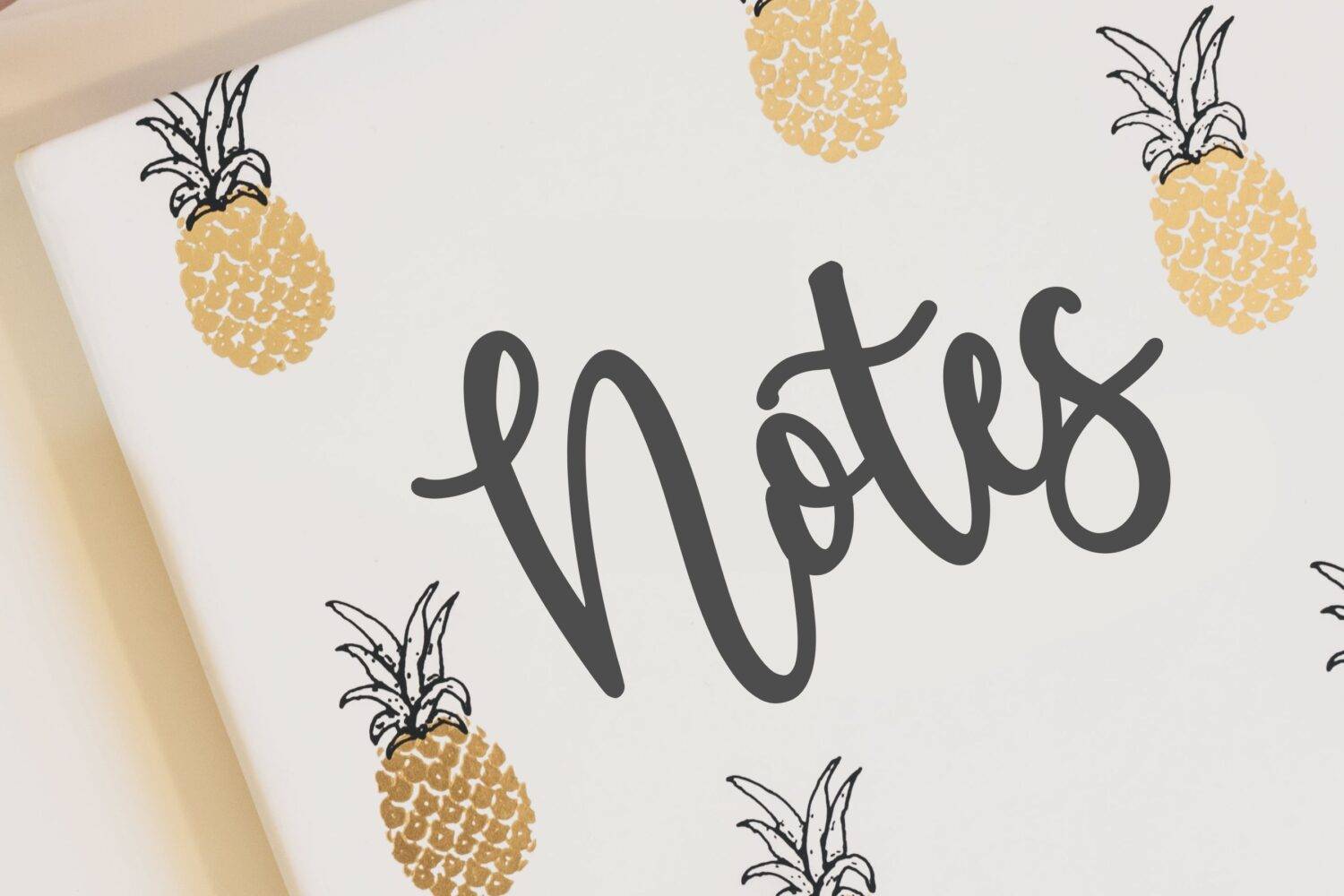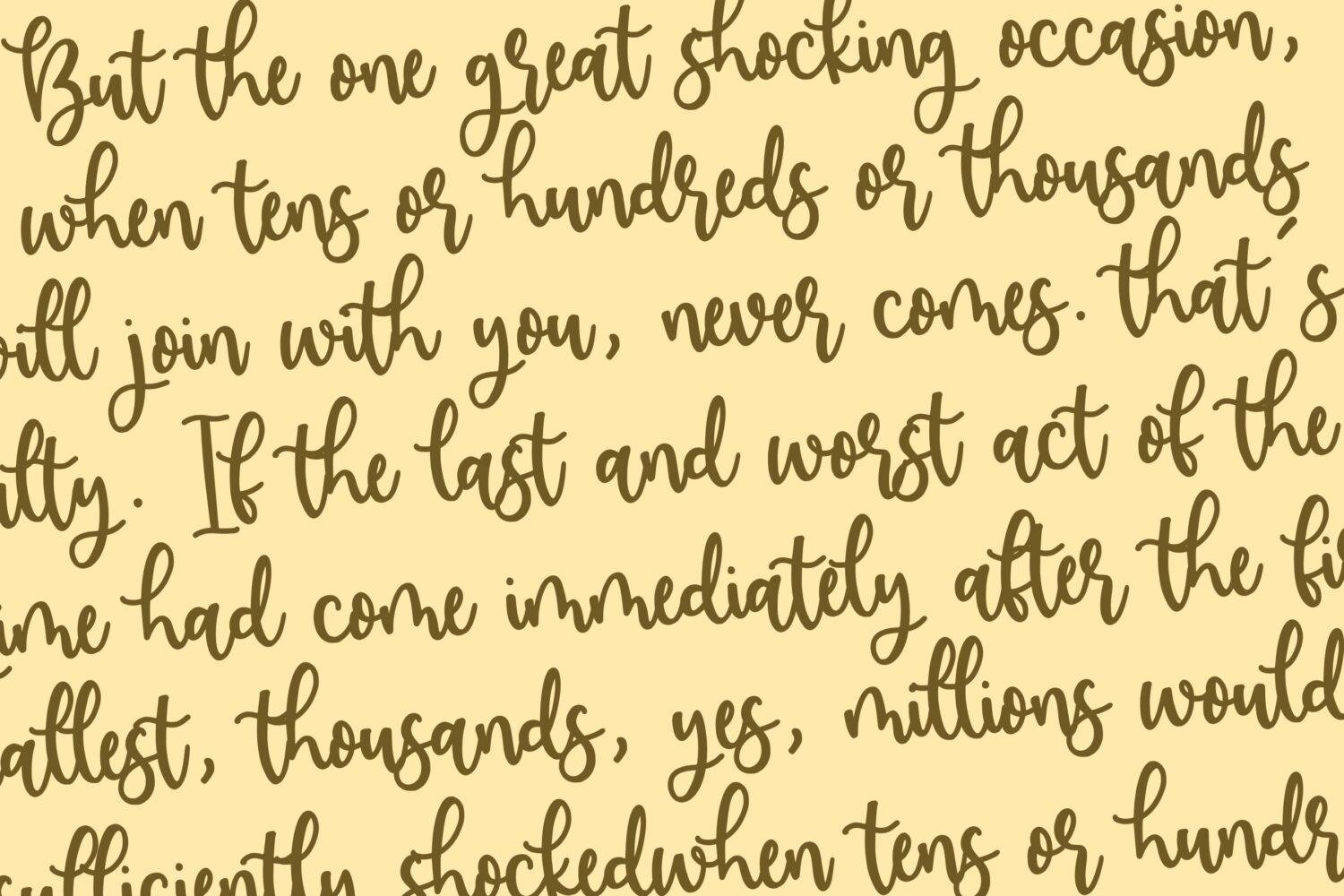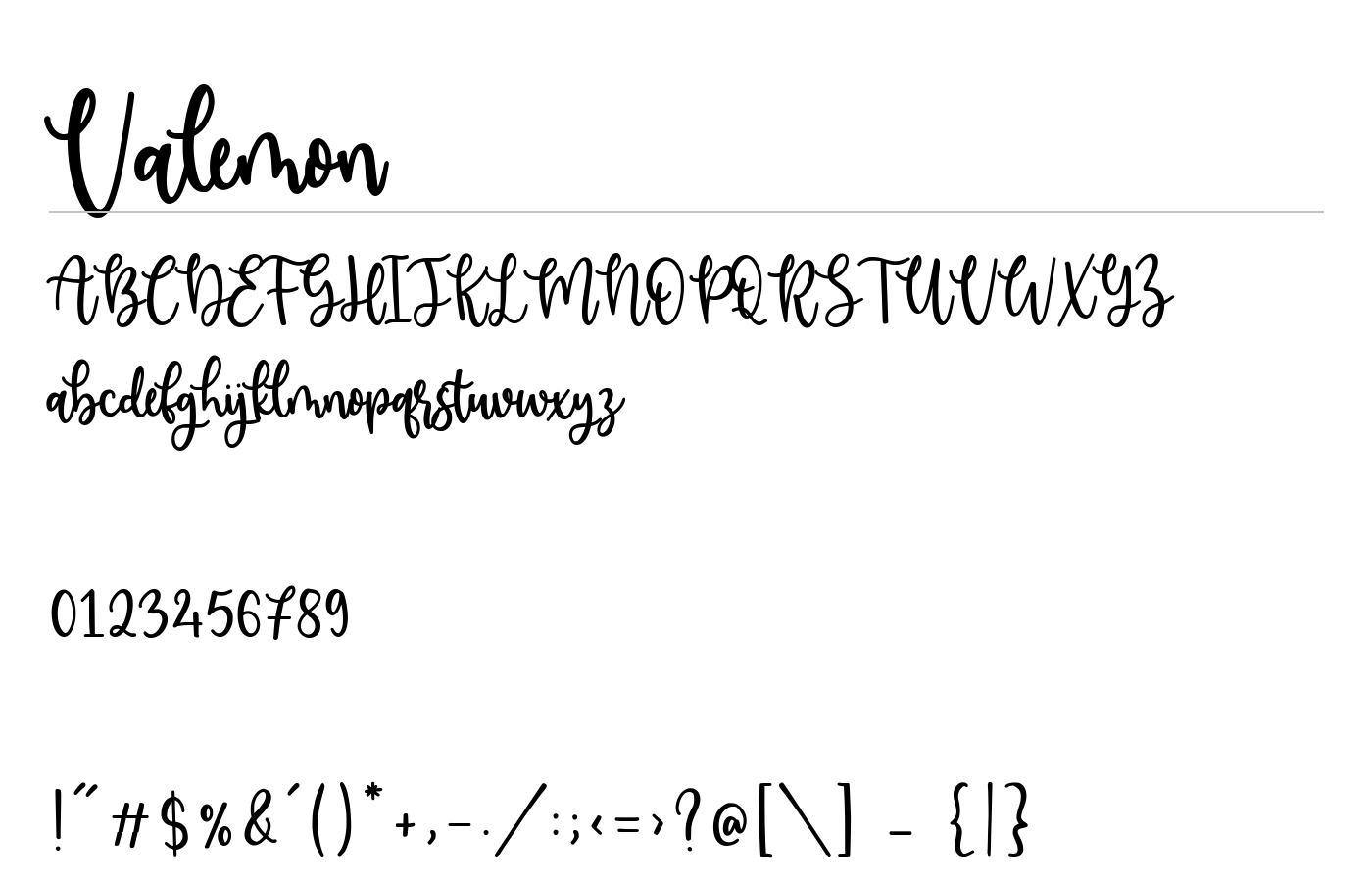
Valemon is a charming handwritten script font with a playful and casual personality, featuring fluid strokes and lively letterforms that convey warmth and creativity. Its upright style with moderate contrast and whimsical character shapes makes it perfect for adding a personal, friendly touch to invitations, branding, social media, and informal designs. This font works best in headlines or short texts where its unique style can truly stand out and bring a joyful, approachable vibe.
Valemon Font
About Valemon Font